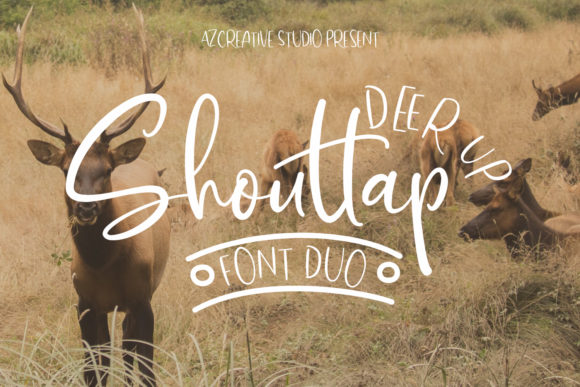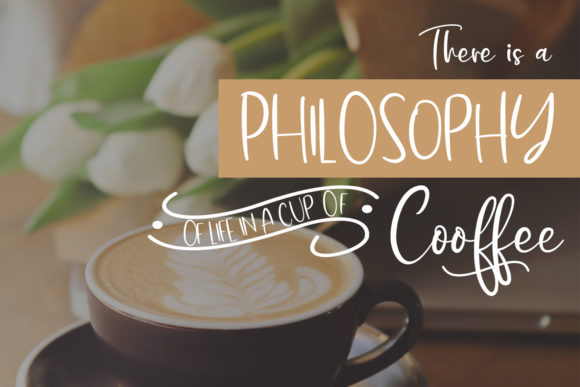
About DeerUp Shouttap Duo Font
DeerUp Shouttap font duo is a beautiful handwritten font. It perfectly combines calligraphy font with handwritten sans font. It brings cute extras and PUA encoded glyphs. This versatility means that this font can be used in a wide variety of applications from logos, to stationery- the only limit is your imagination!
It will elevate a wide range of design projects to the highest level, be it branding, headings, wedding designs, invitations, signatures, logos, labels, and much more!